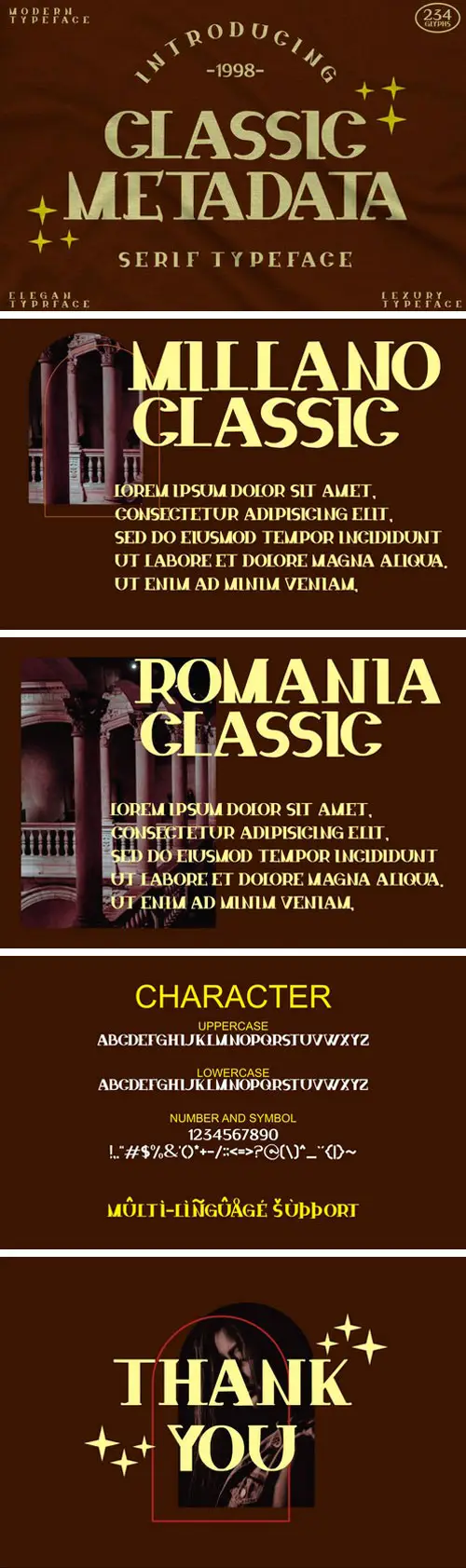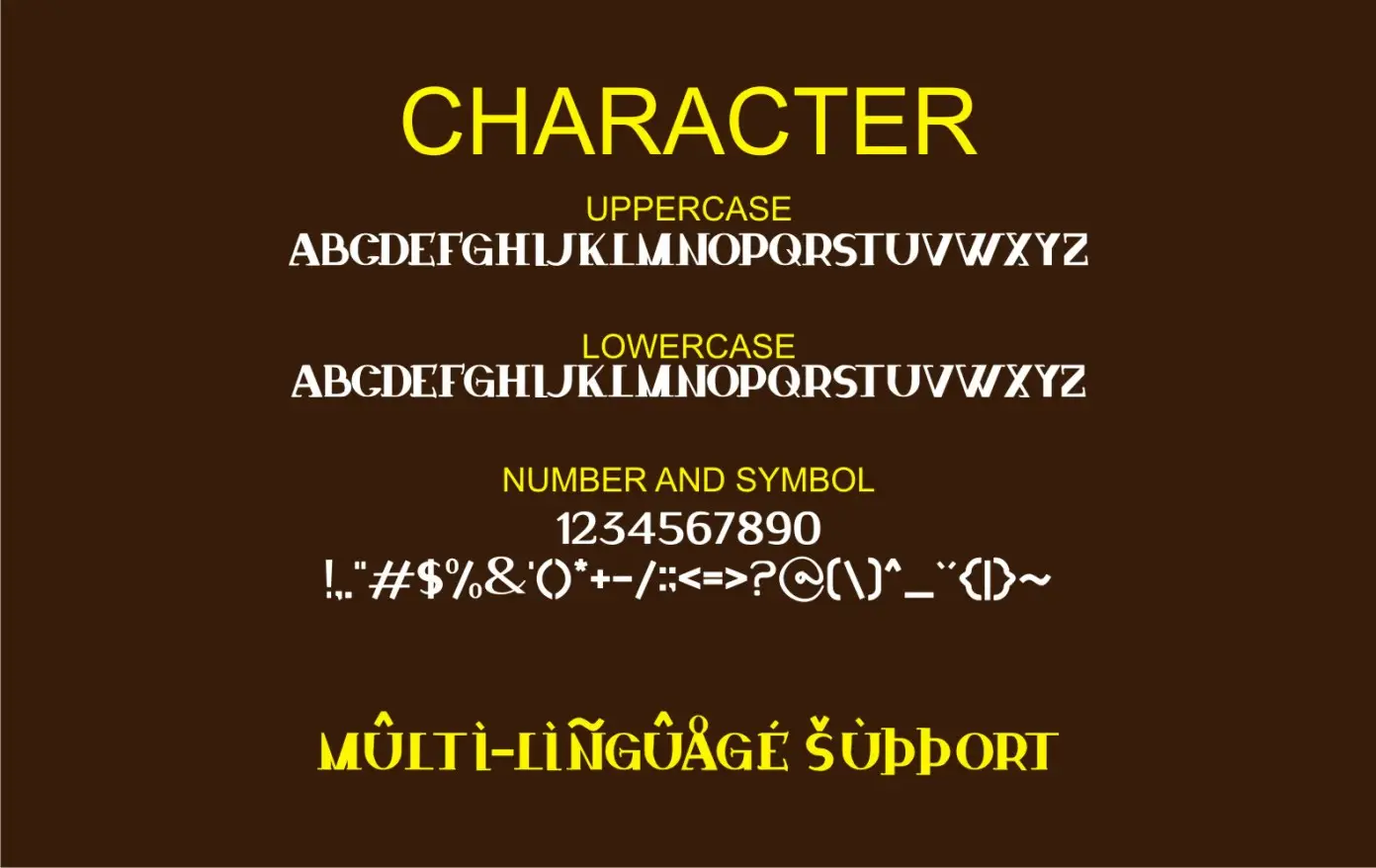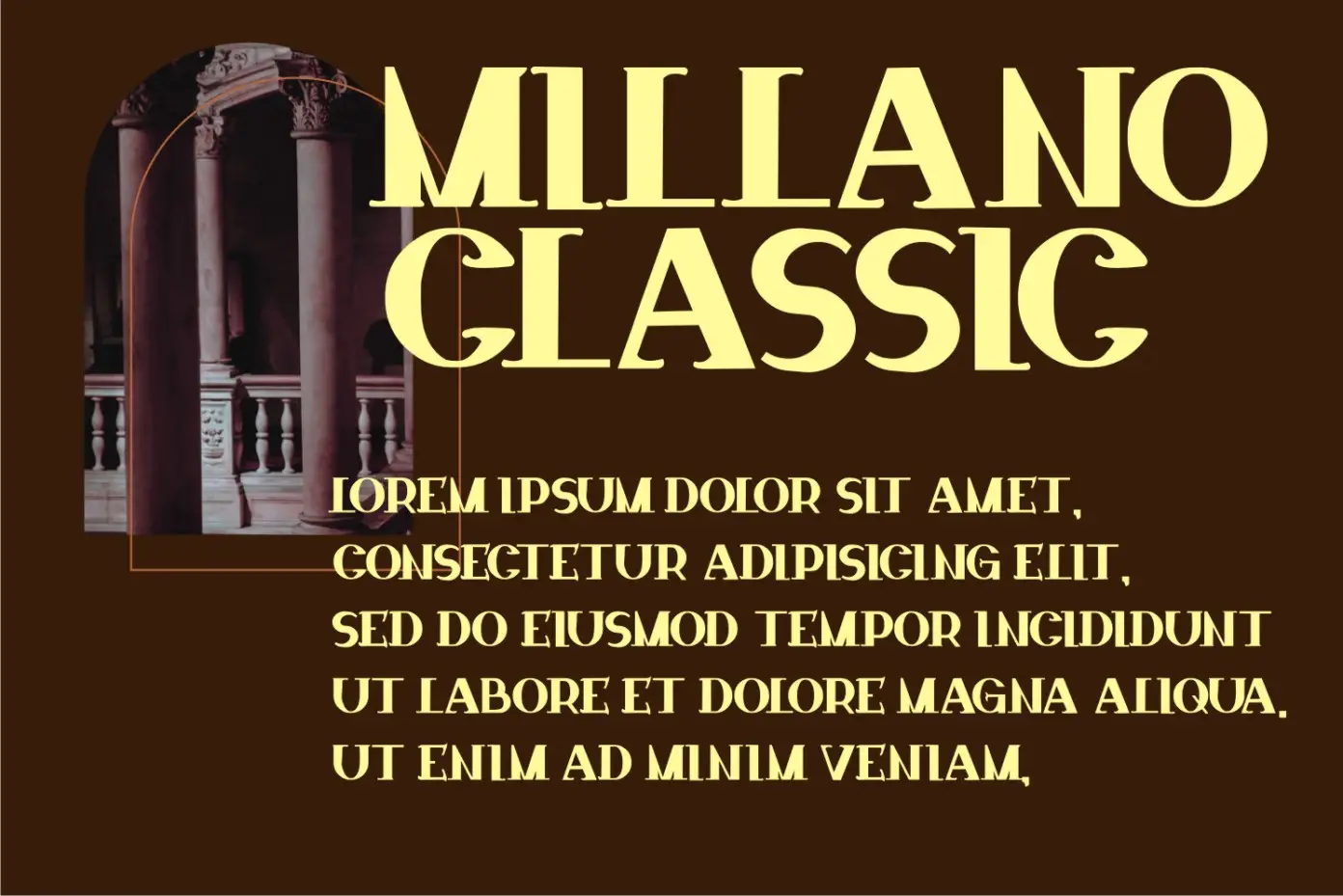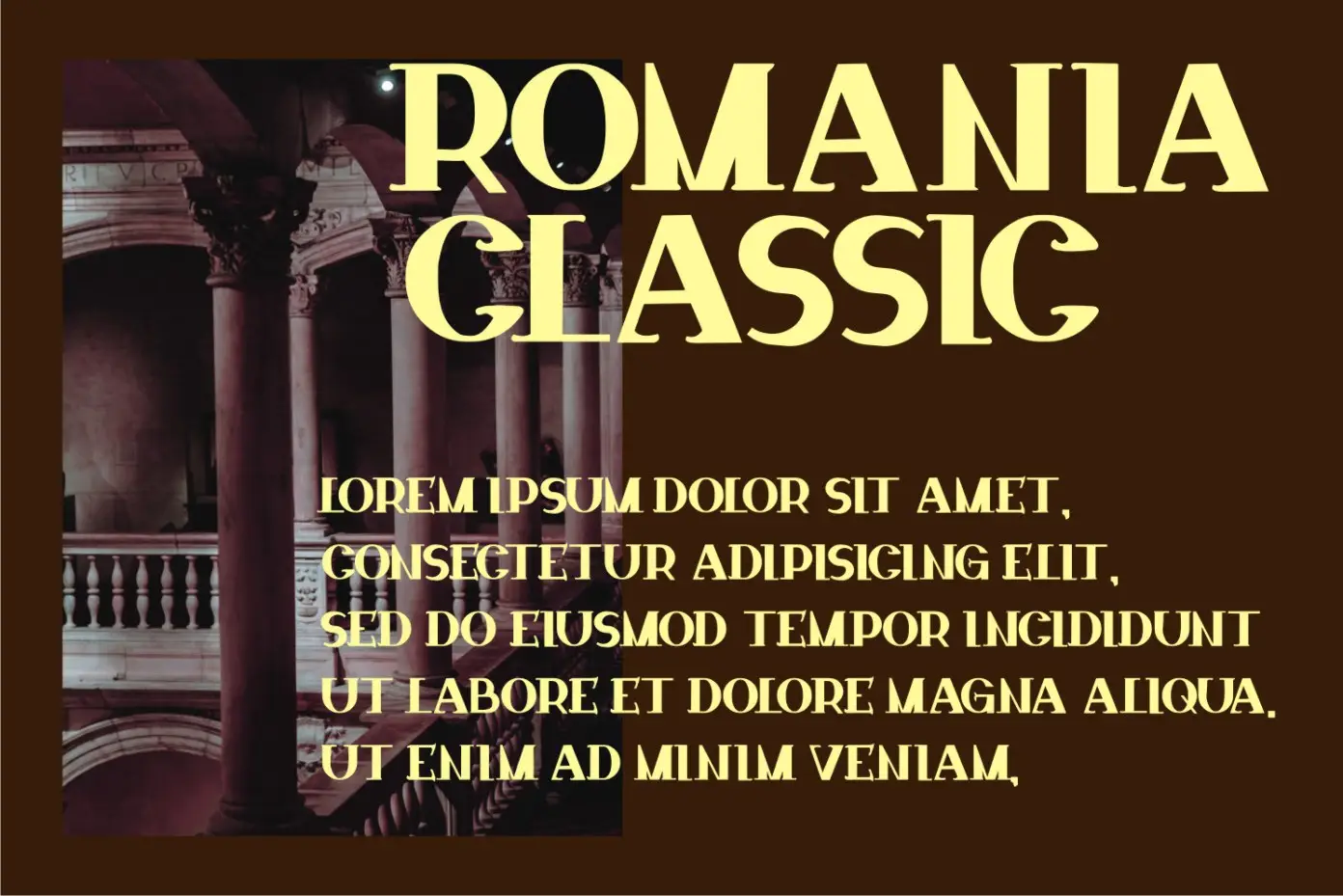
The Classic Metadata Display Font is a versatile typeface designed for clear and effective communication. With its modern yet timeless aesthetic, this font is perfect for a variety of applications, including branding, logos, web design, and print materials.
- Ideal for UI elements and digital interfaces.
- Use in print for brochures, flyers, and business cards.
- Great for creating eye-catching headlines and titles.
Classic Metadata Display Font